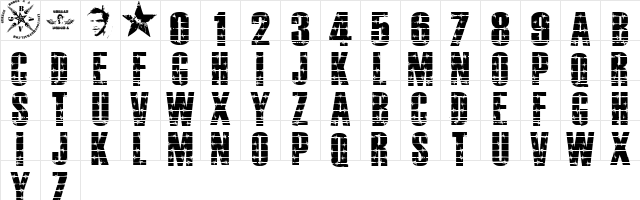
ALAMBRADO INFERNAL Regular Free Font
ALAMBRADO INFERNAL Regular
Design Context for ALAMBRADO INFERNAL
ALAMBRADO INFERNAL is a composed and adaptable typeface that performs quietly and consistently across a wide range of design contexts.